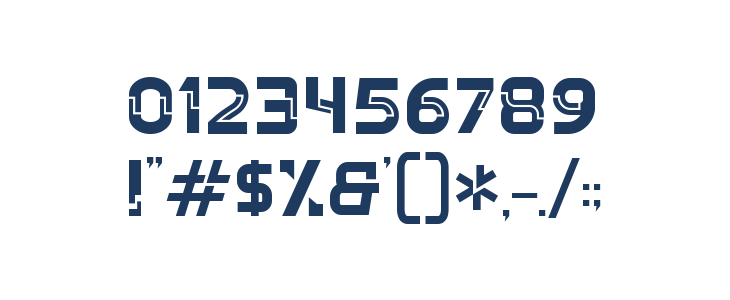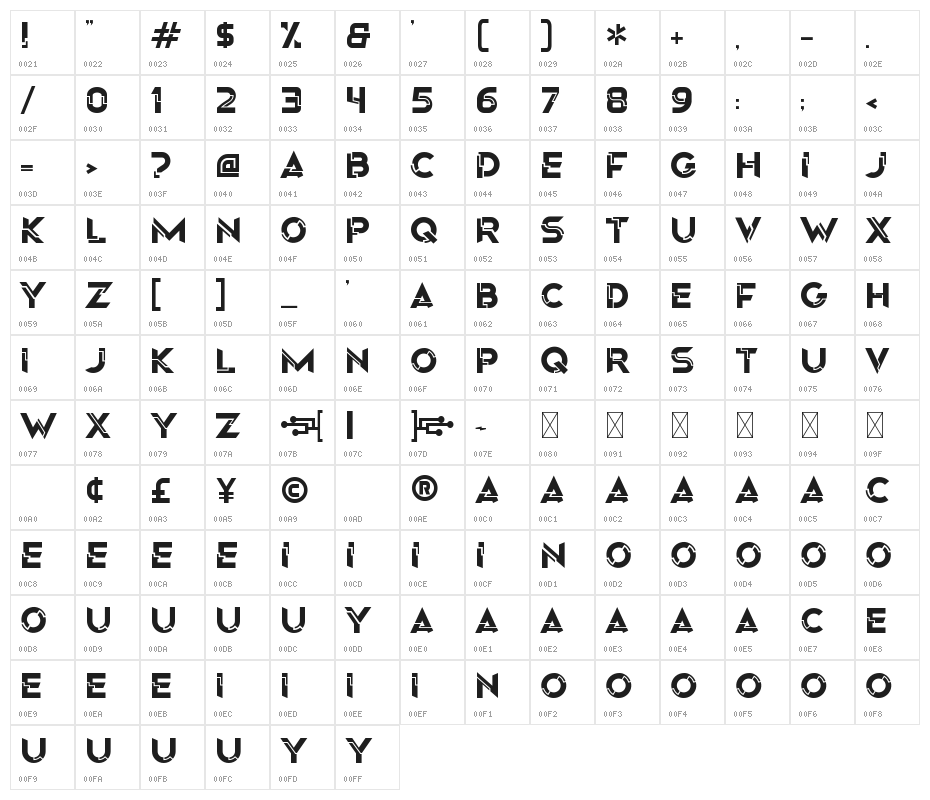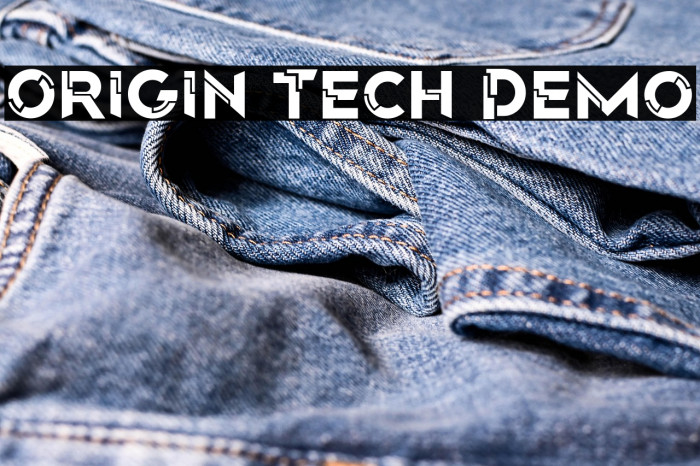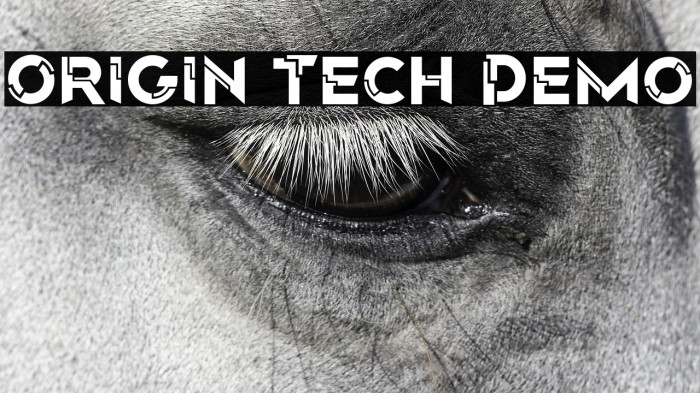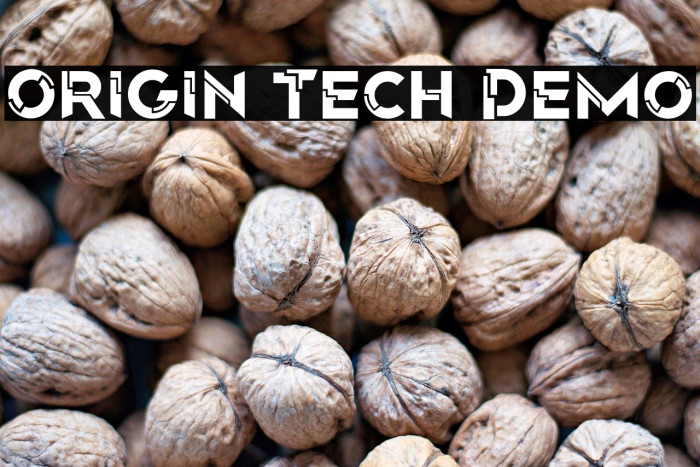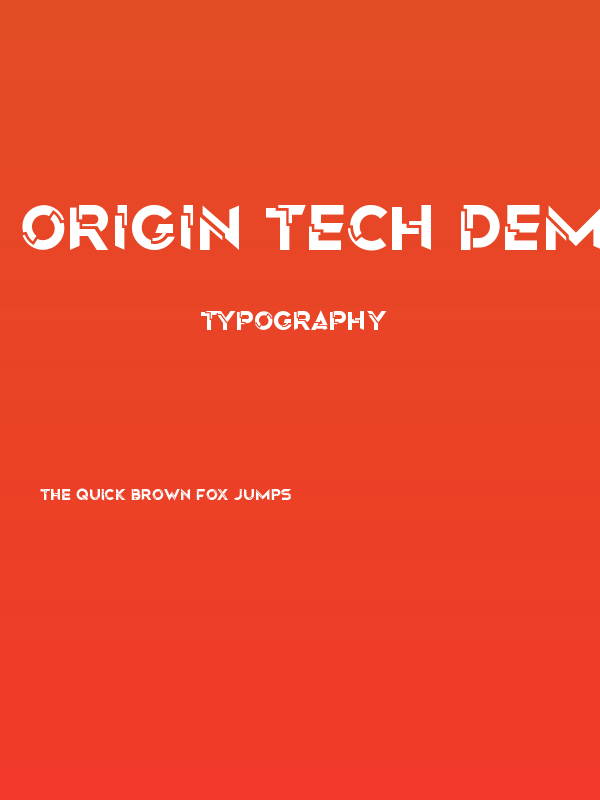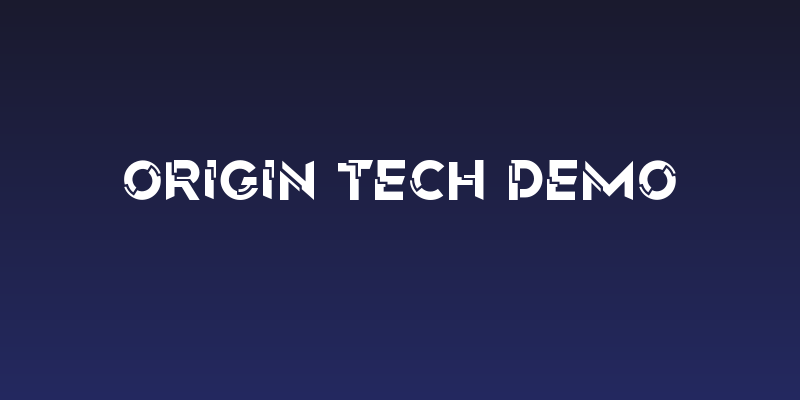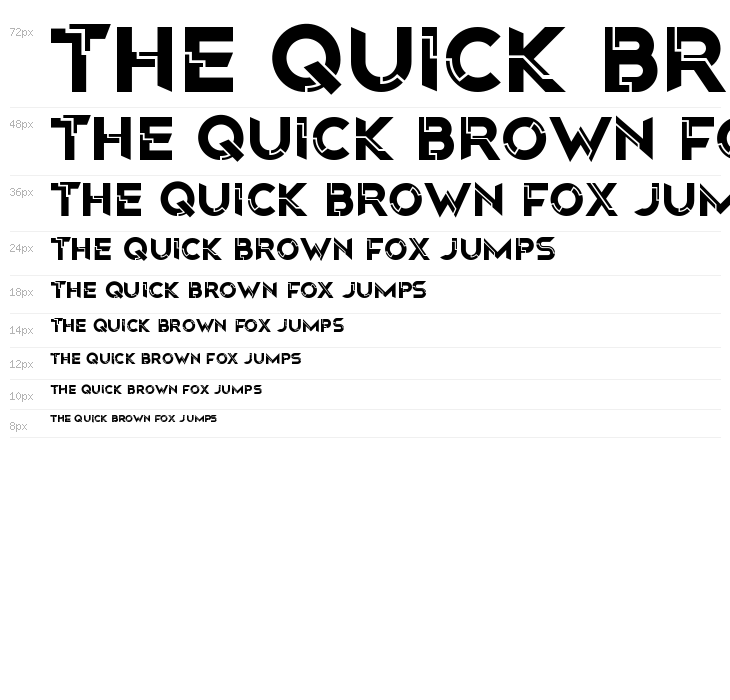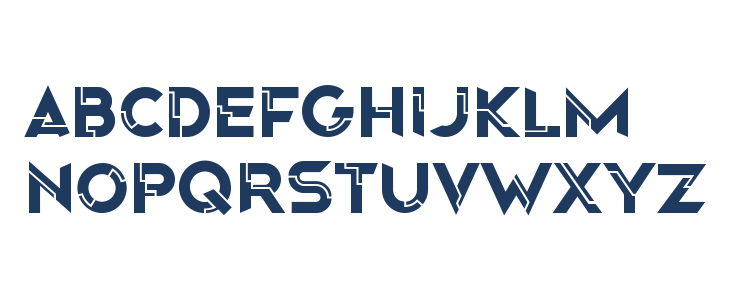
Origin Tech Demo Font
Origin Tech Demo Description
This font features a bold, futuristic design with geometric shapes and sharp angles. The characters are constructed with a combination of solid and cut-out sections, giving them a dynamic and tech-inspired appearance. The uppercase and lowercase letters maintain a consistent style, with a strong emphasis on angular cuts and a sense of movement. The numerals and special characters follow the same design principles, ensuring a cohesive look across all glyphs. This font is ideal for projects that require a modern, edgy aesthetic, such as technology branding, sci-fi themes, or digital interfaces.
| Proposed Projects | Ideal for technology branding, sci-fi themes, digital interfaces, and modern posters. |